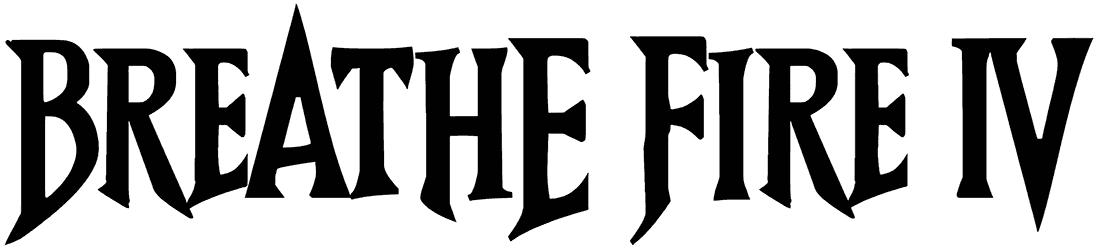
Breathe Fire IV Font
Get your text customized with this gothic font to see how mesmerizing your project will become. The letters of this sword font have a sharp, bold, and strong vibe that is going to throw a medieval mood into your creative…
Get your text customized with this gothic font to see how mesmerizing your project will become. The letters of this sword font have a sharp, bold, and strong vibe that is going to throw a medieval mood into your creative design. Breathe Fire IV font doesn’t cover lowercase letters, but it could be a perfect selection for a historical book cover, or the like.